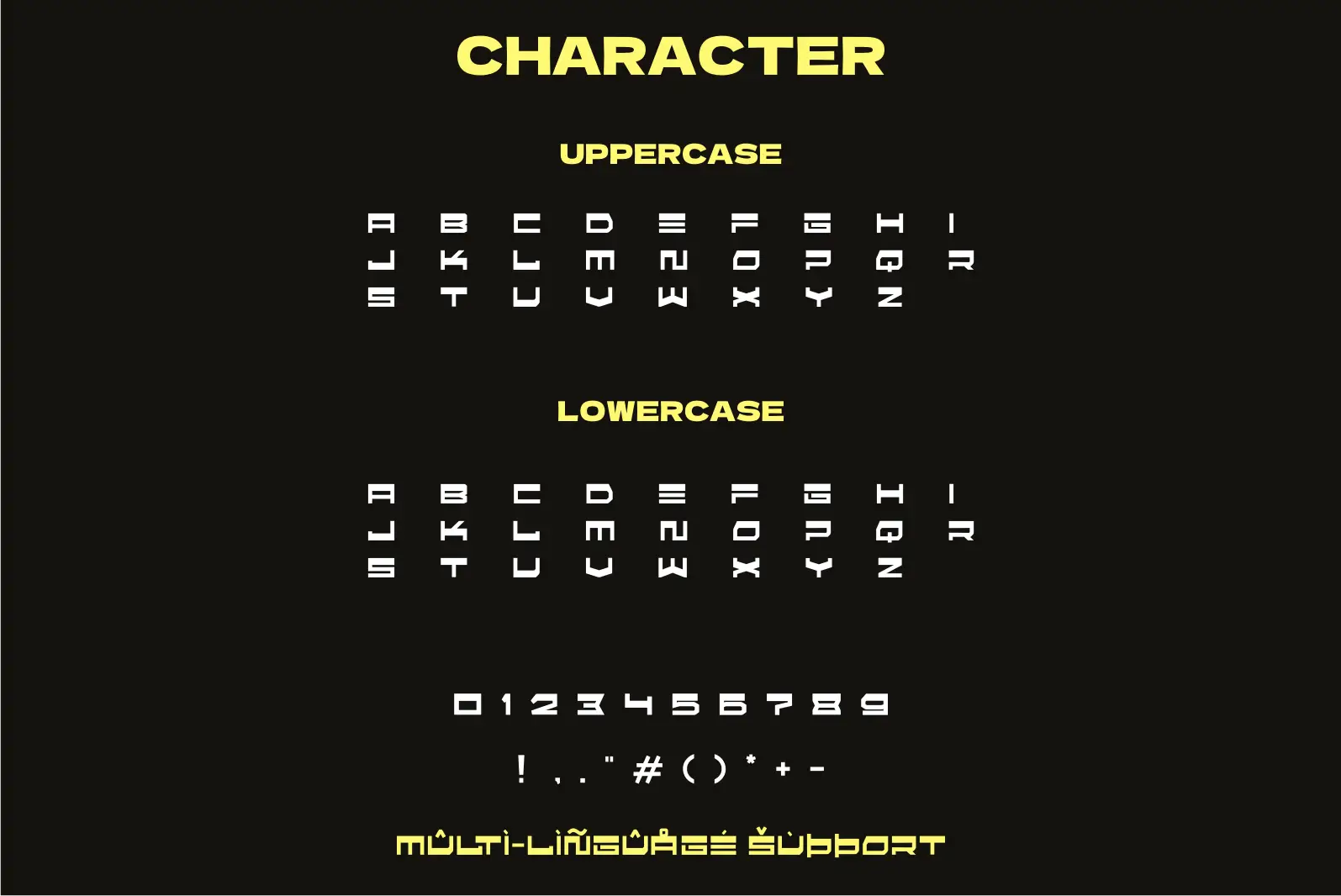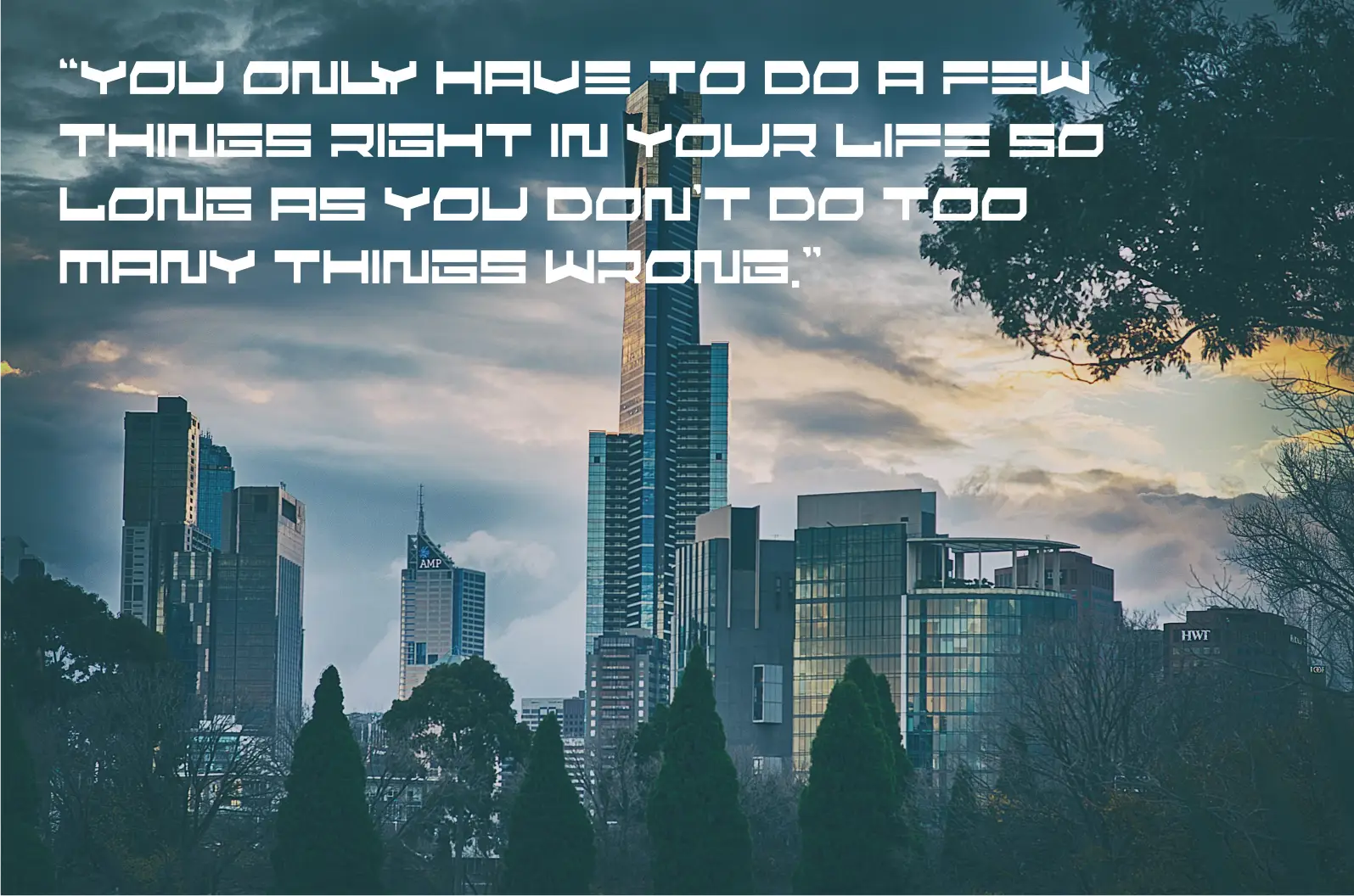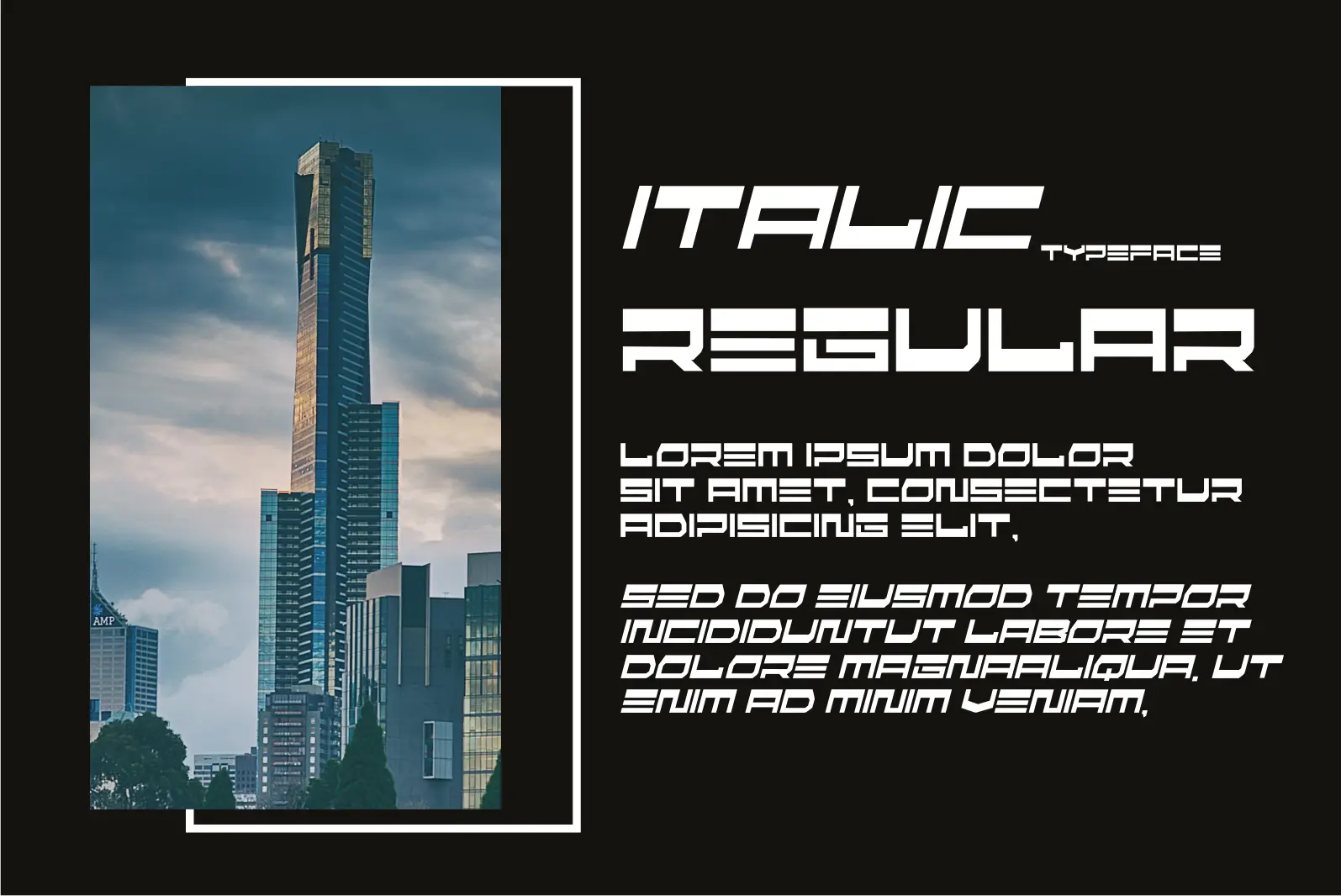
Farte Display Font
The Farte Display Font is a unique typeface designed to make a statement. With its bold and expressive character, this font is perfect for a variety of creative projects, including branding, logos, and eye-catching headlines.
• Stylish display font with a modern aesthetic
• Multiple weights for versatile applications
• Uppercase and lowercase letters included
• Numerals and punctuation for complete typographic needs
• Style: Display
Ideal for web and print applications, the Farte Display Font can elevate your designs by providing a distinctive look. Use it for posters, advertisements, and social media graphics to capture attention.